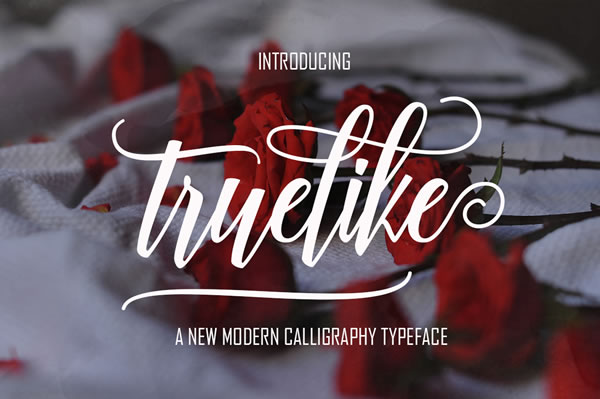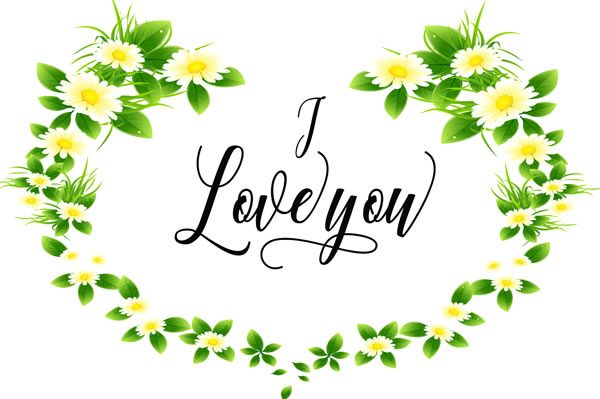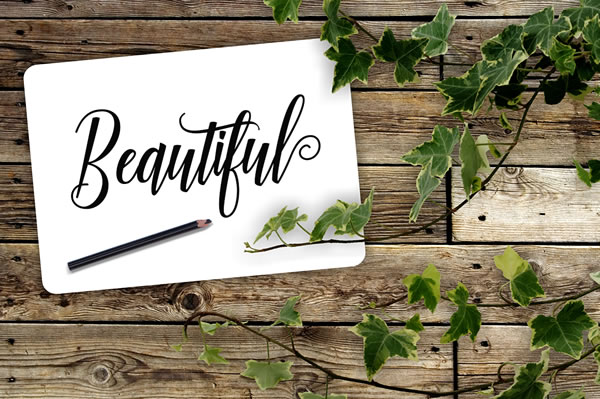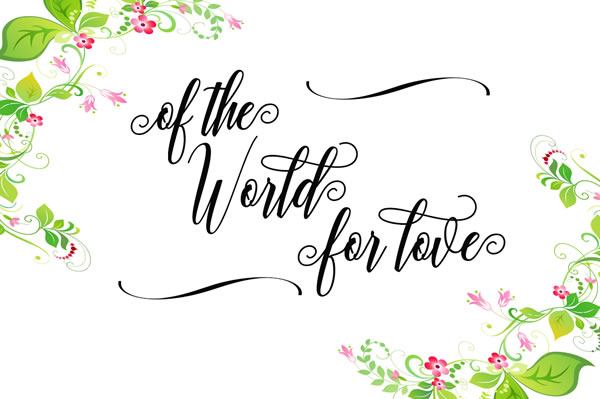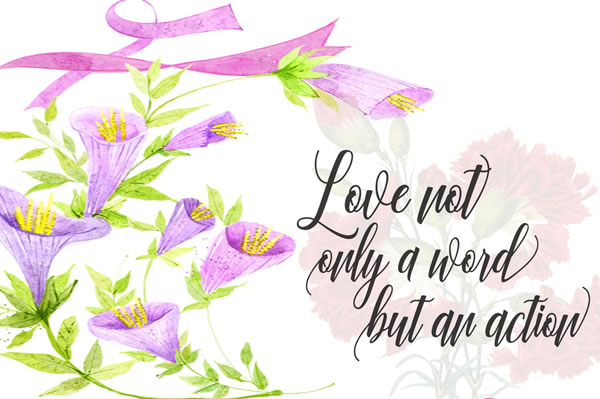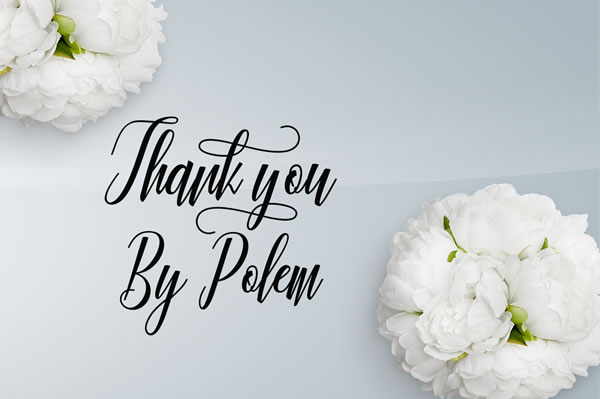
Truelike Font
About Truelike Font
Truelike is a unique connecting script that has been designed to add elegance and style to your designs. It’s a font that works great for fashion, apparel, invites and other chic looking businesses.